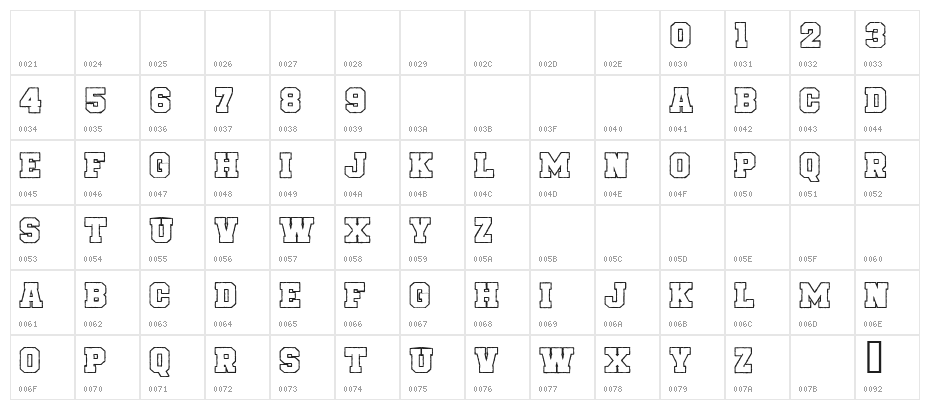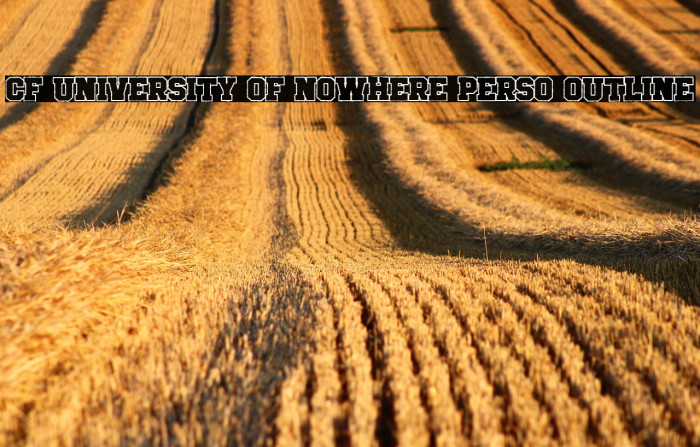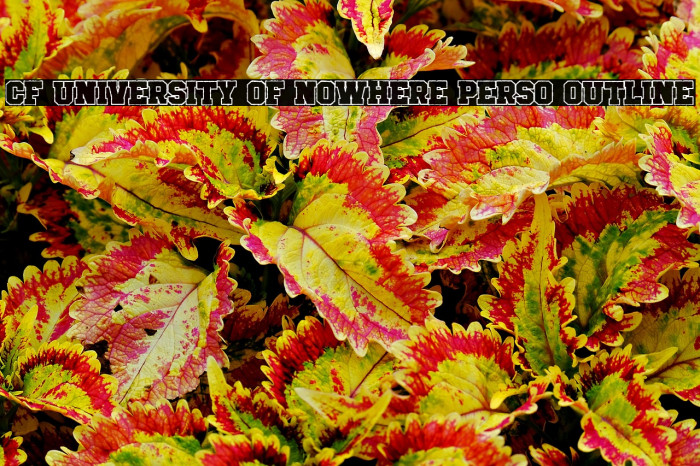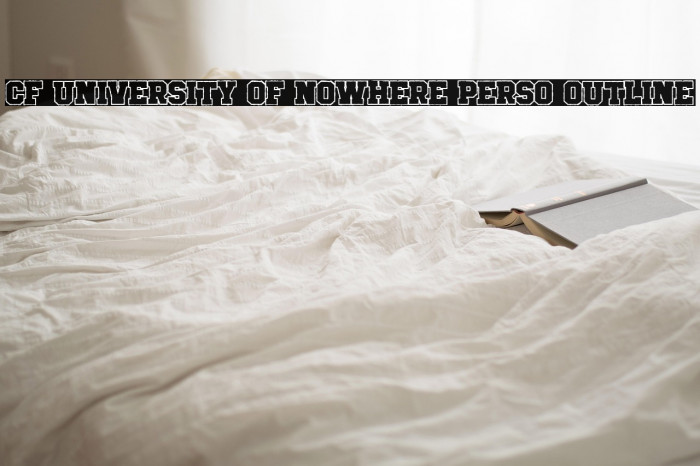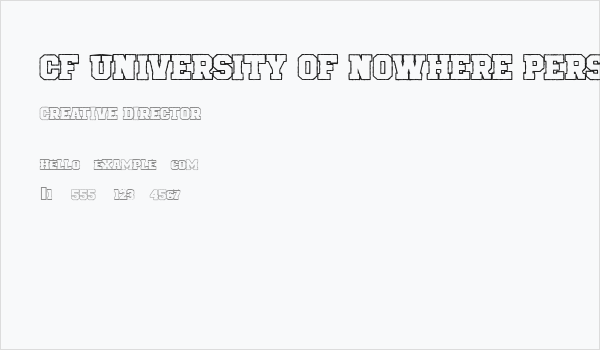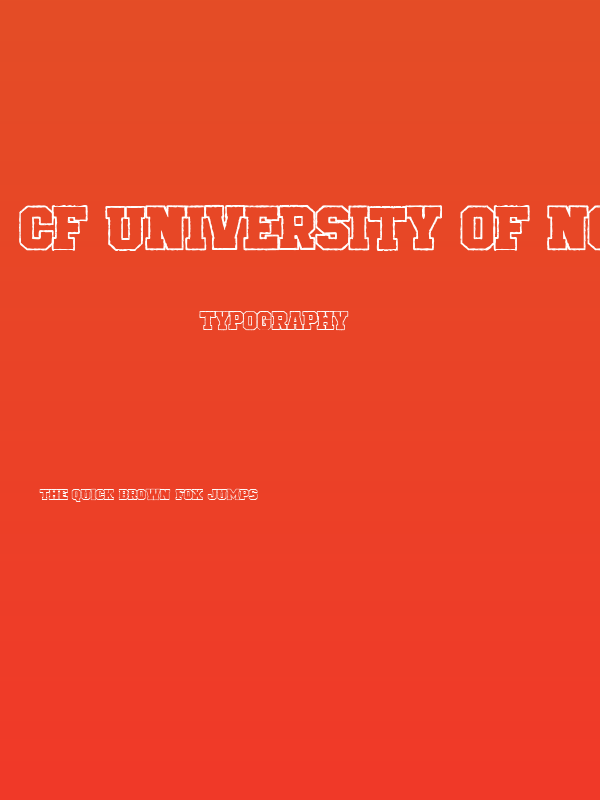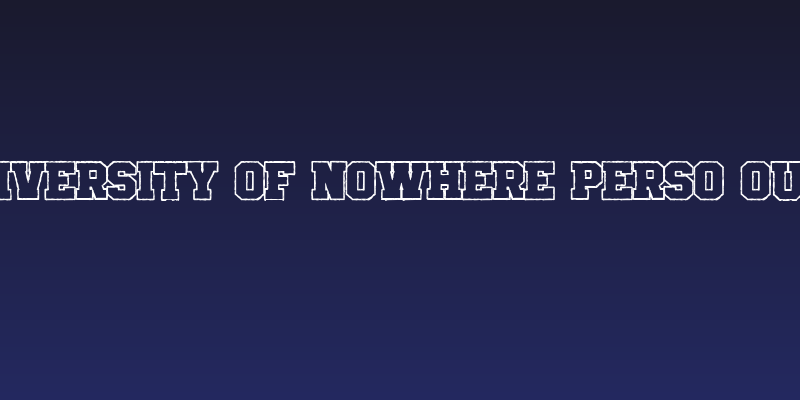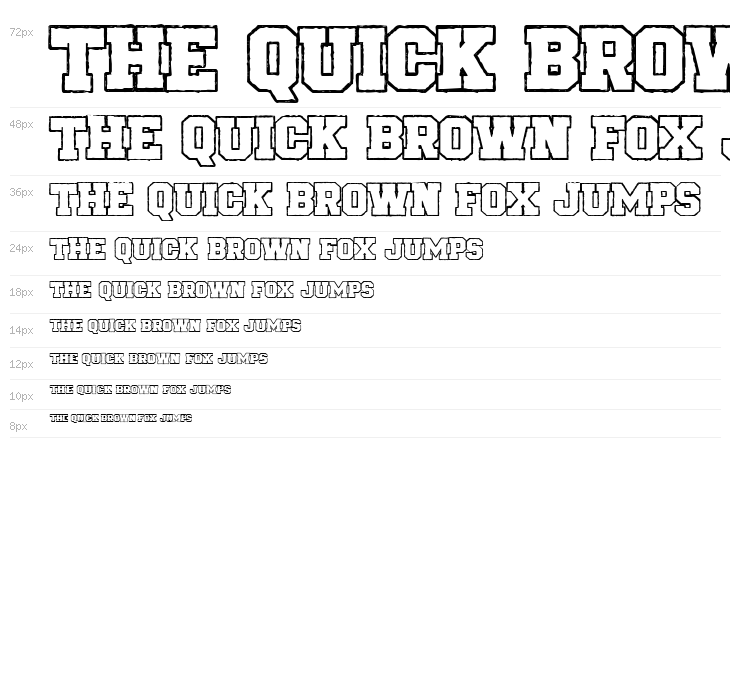
CF University of Nowhere PERSO Outline Font
CF University of Nowhere PERSO Outline Description
This font features a bold, outlined style with a strong and impactful presence. Each character is designed with a thick outer border, giving it a three-dimensional effect. The uppercase letters are uniform in height, with a consistent width that provides a balanced and structured appearance. The numbers follow the same design principles, ensuring cohesion across all characters. The font's outline style makes it ideal for creating standout text that demands attention. Its boldness and clarity make it suitable for various design projects where visibility and emphasis are key.
| Proposed Projects | Ideal for sports team logos, event posters, and any design requiring a bold statement. |